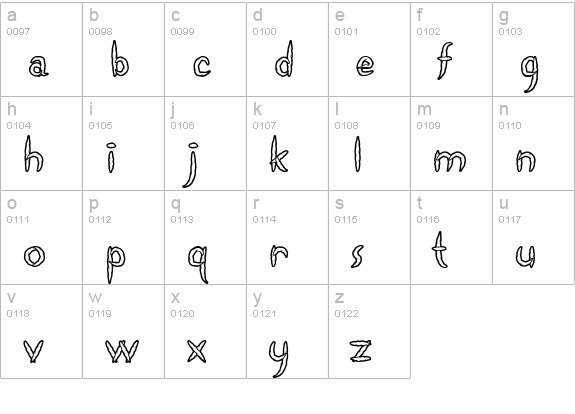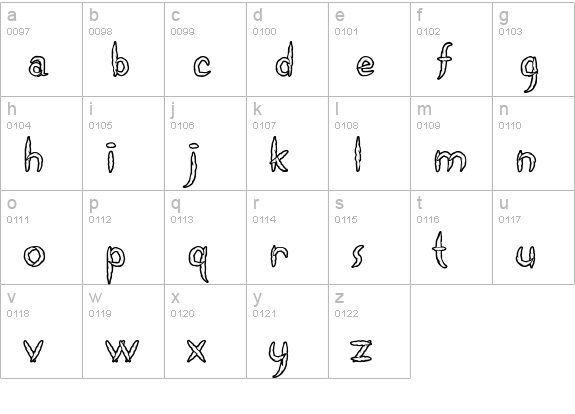
Spliffs Font Details
Introducing Spliffs font, a unique and stylish typeface that combines modernity with a touch of personality. With its sleek lines and playful curves, Spliffs is perfect for adding a contemporary flair to any design project. Whether you're creating a logo, branding materials, or social media graphics, this versatile font is sure to make a statement. What sets Spliffs apart is not just its modern aesthetic, but also the fact that it is completely free to download. That's right, you can get your hands on this stunning font at no cost at FontsMarket.com. So why wait? Elevate your designs with Spliffs and let your creativity shine!